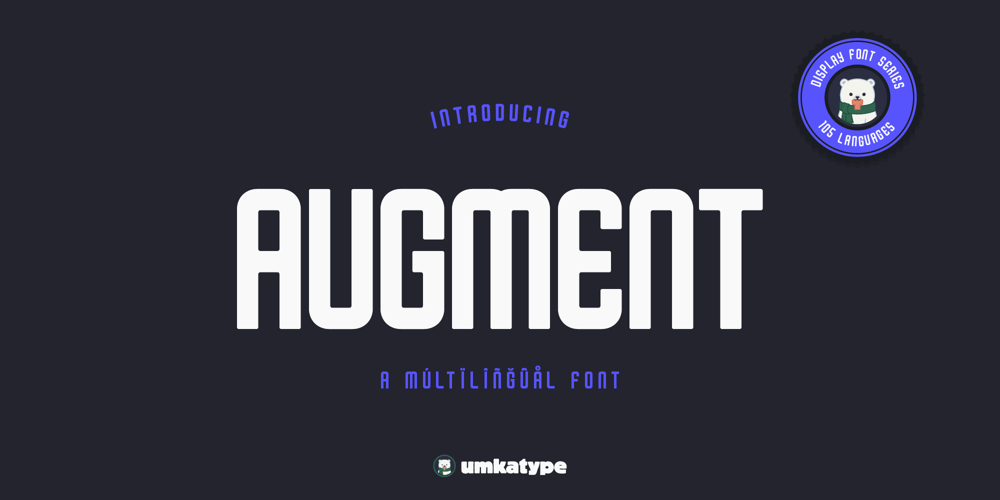
Augment Font Family was designed by Alper Çakıcı and published by Umka Type. Augment contains 1 styles and family package options. Augment is a modern, versatile font with excellent kerning, making it ideal for both digital and print use. It features full support for the Cyrillic language, allowing for seamless multilingual communication. Augment’s unique design combines classic proportions with a contemporary feel, making it stand out from other same categories fonts.Augment supports 105 Languages:Afrikaans • Albanian • Asu • Azerbaijani • Basque • Belarusian • Bemba • Bena • Bosnian • Breton • Bulgarian • Catalan • Cebuano • Chechen • Chiga • Colognian • Cornish • Corsican • Croatian • Czech • Danish • Dutch • Embu • English • Erzya • Esperanto • Estonian • Faroese • Filipino • Finnish • French • Friulian • Galician • Ganda • German • Guarani • Gusii • Hungarian • Icelandic • Ido • Inari Sami • Indonesian • Ingush • Interlingua • Irish • Italian • Javanese • Jju • Jola-Fonyi • Kabuverdianu • Kaingang • Kalaallisut • Kalenjin • Kamba • Kazakh • Kikuyu • Kinyarwanda • Kurdish • Kyrgyz • Latvian • Lithuanian • Lojban • Low German • Lower Sorbian • Luo • Luxembourgish • Luyia • Macedonian • Machame • Makhuwa-Meetto • Makonde • Malagasy • Malay • Maltese • Manx • Māori • Meru • Mohawk • Mongolian • Morisyen • Nheengatu • North Ndebele • Northern Sami • Northern Sotho • Norwegian Bokmål • Norwegian Nynorsk • Nyanja • Nyankole • Occitan • Oromo • Ossetic • Polish • Portuguese • Quechua • Rejang • Romanian • Romansh • Rombo • Rundi • Russian • Rwa • Sakha • Samburu • Sango • Sangu • Sardinian • Scottish Gaelic • Sena • Serbian • Shambala • Shona • Sicilian • Slovak • Slovenian • Soga • Somali • South Ndebele • Southern Sotho • Spanish • Sundanese • Swahili • Swati • Swedish • Swiss German • Taita • Tajik • Taroko • Tatar • Teso • Tsonga • Tswana • Turkish • Turkmen • Ukrainian • Upper Sorbian • Vunjo • Walloon • Walser • Welsh • Western Frisian • Wolastoqey • Wolof • Xhosa • Zulu